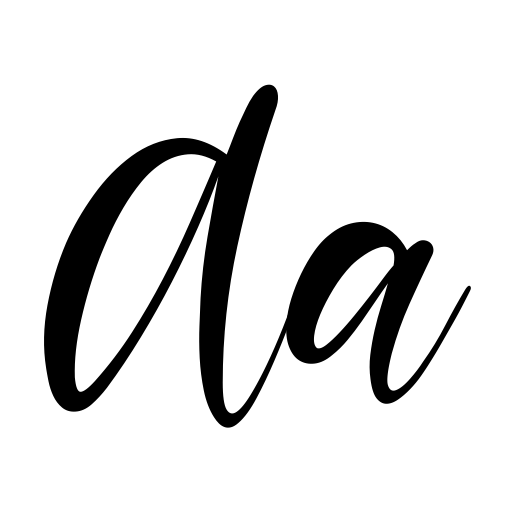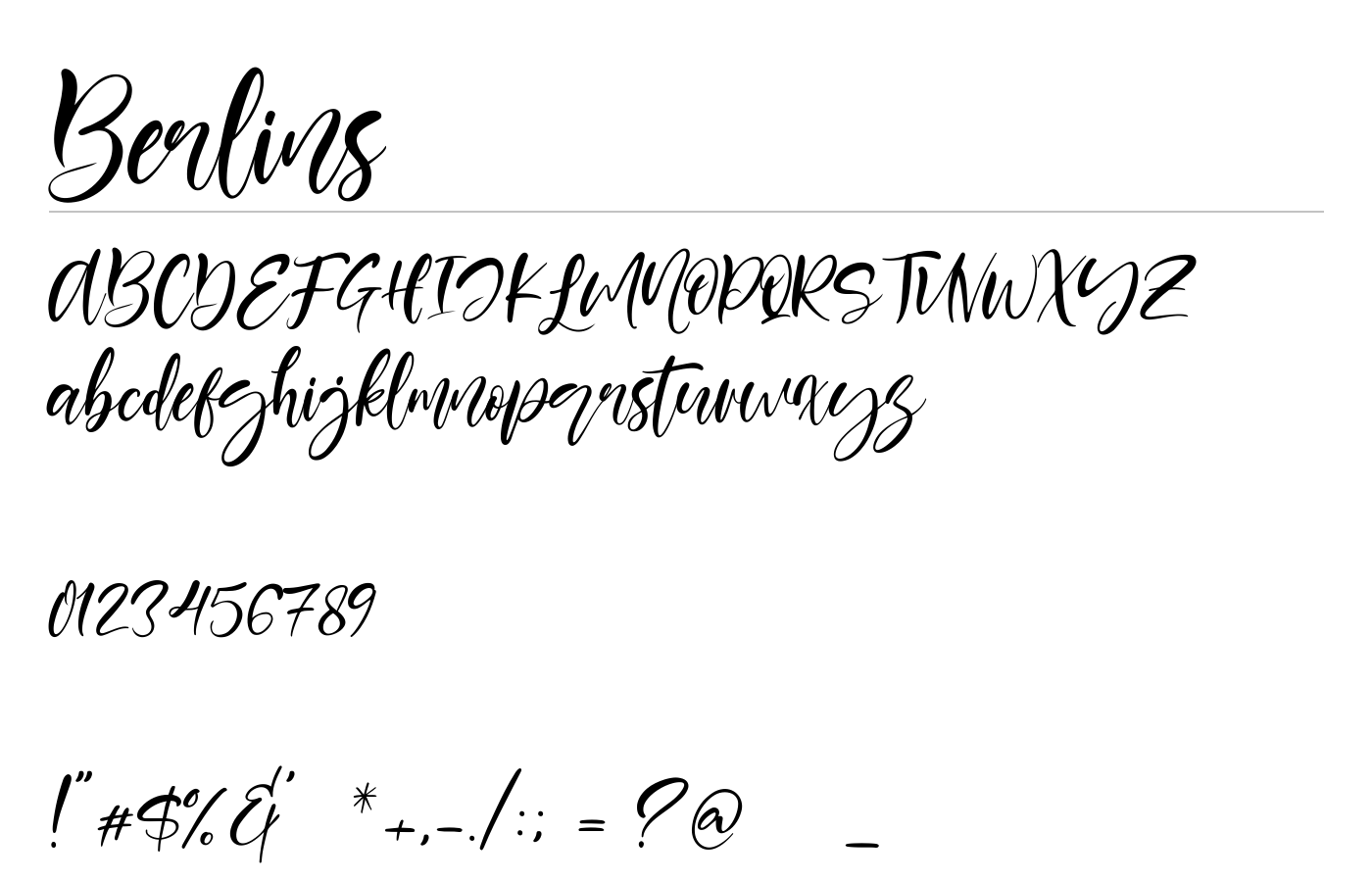
Berlins is an elegant script font characterized by its fluid, hand-lettered style with smooth, flowing strokes and medium contrast, giving it a stylish and approachable look. Its narrow width and lively letterforms make it perfect for creative branding, invitations, and logo designs where a personal, sophisticated touch is desired. This font works beautifully in contexts that call for charm and expressiveness while maintaining readability.
Berlins Font
About Berlins Font